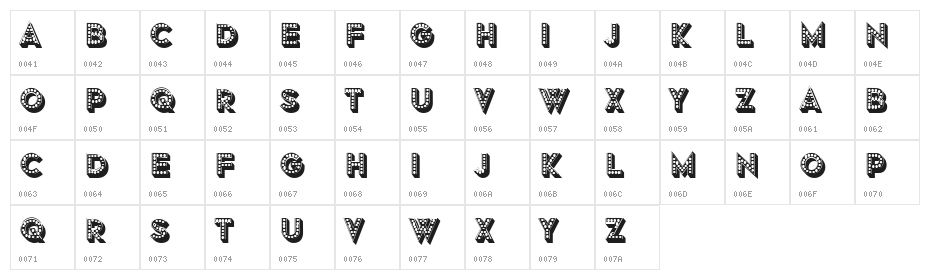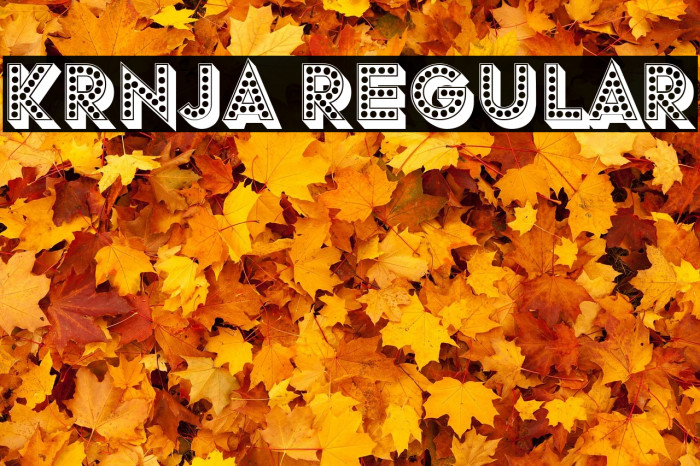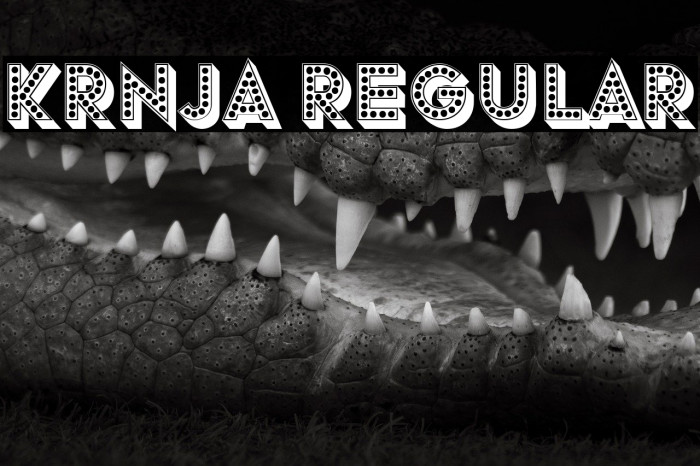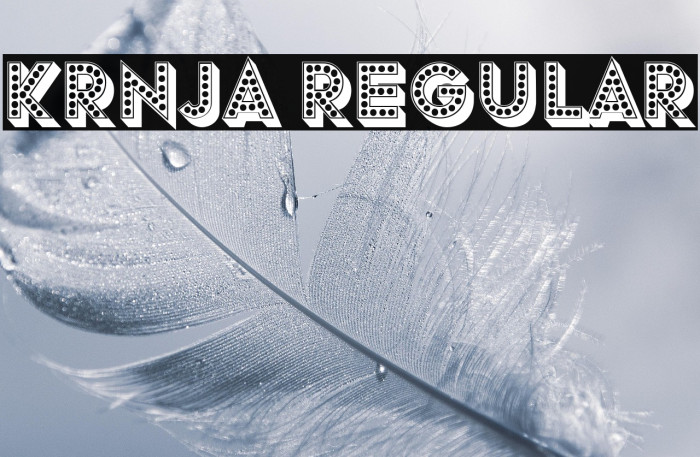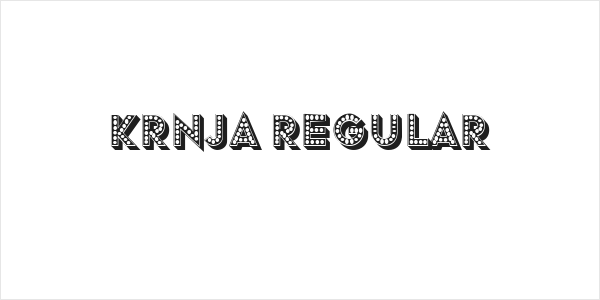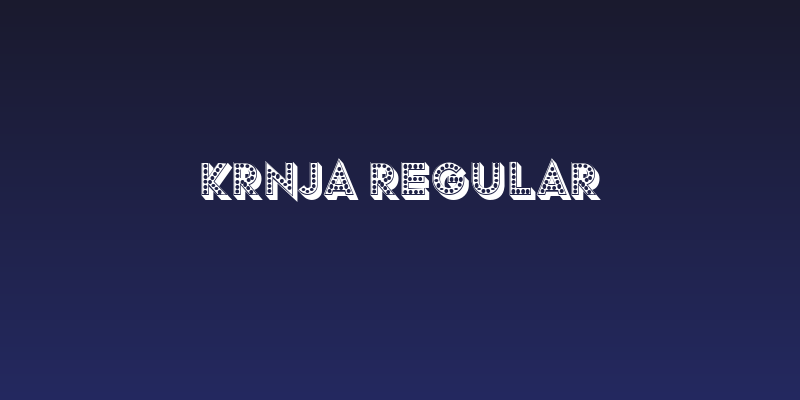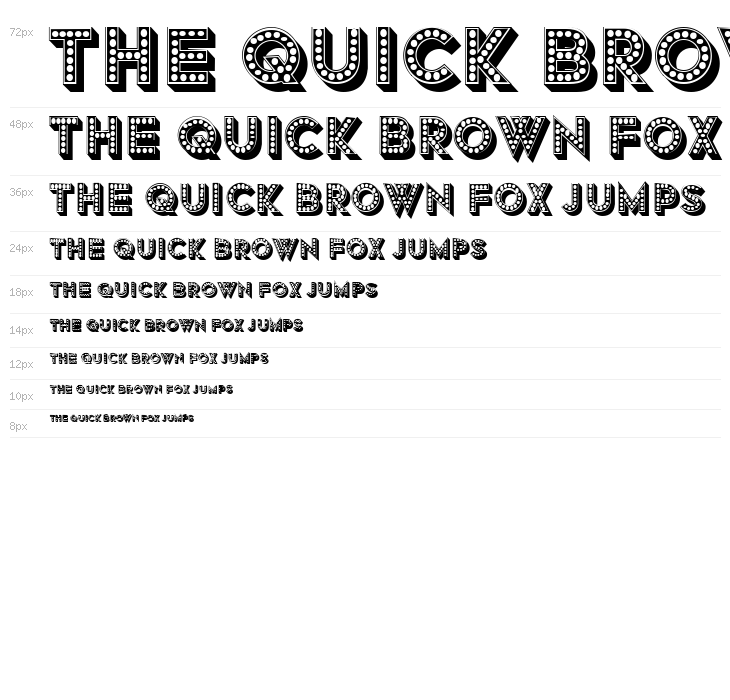
Krnja Regular Font
Krnja Regular Description
This font features a bold, decorative style with a distinct 3D effect, reminiscent of marquee lights. Each character is outlined with a thick black border and filled with circular dots, creating a vibrant and eye-catching appearance. The letters are uppercase, with a consistent height and width, providing a uniform look across the alphabet. The design is playful and theatrical, making it ideal for projects that require a touch of drama and flair. The font's unique style is perfect for capturing attention and adding a sense of excitement to any design.
| Proposed Projects | Ideal for posters, event invitations, signage, and branding that require a dramatic and eye-catching style. |